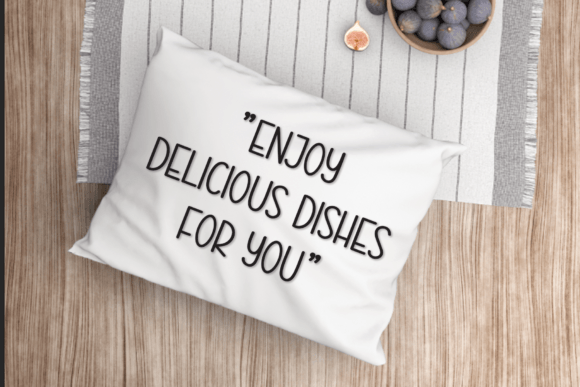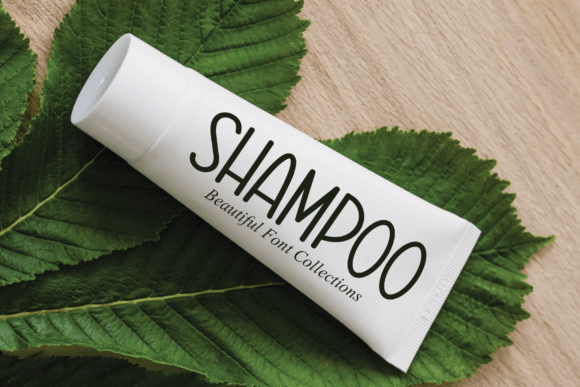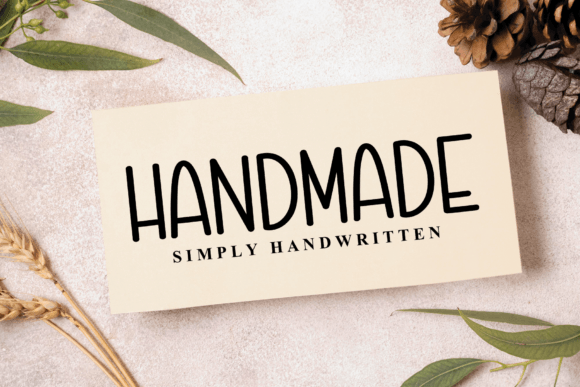
Introduction to Decoration Creative Font
Decoration Creative is a neat and casual handwritten font.
Incredibly versatile, this font will be suitable for a wide spectrum of applications Add it to each of your creative ideas and notice how it makes them stand out.
Key Features of Decoration Creative Font
Why Choose Decoration Creative Font?
Decoration Creative Font offers exceptional quality and versatility, making it a valuable addition to your design toolkit. Whether you’re creating for personal projects or commercial use, Decoration Creative Font delivers professional results.